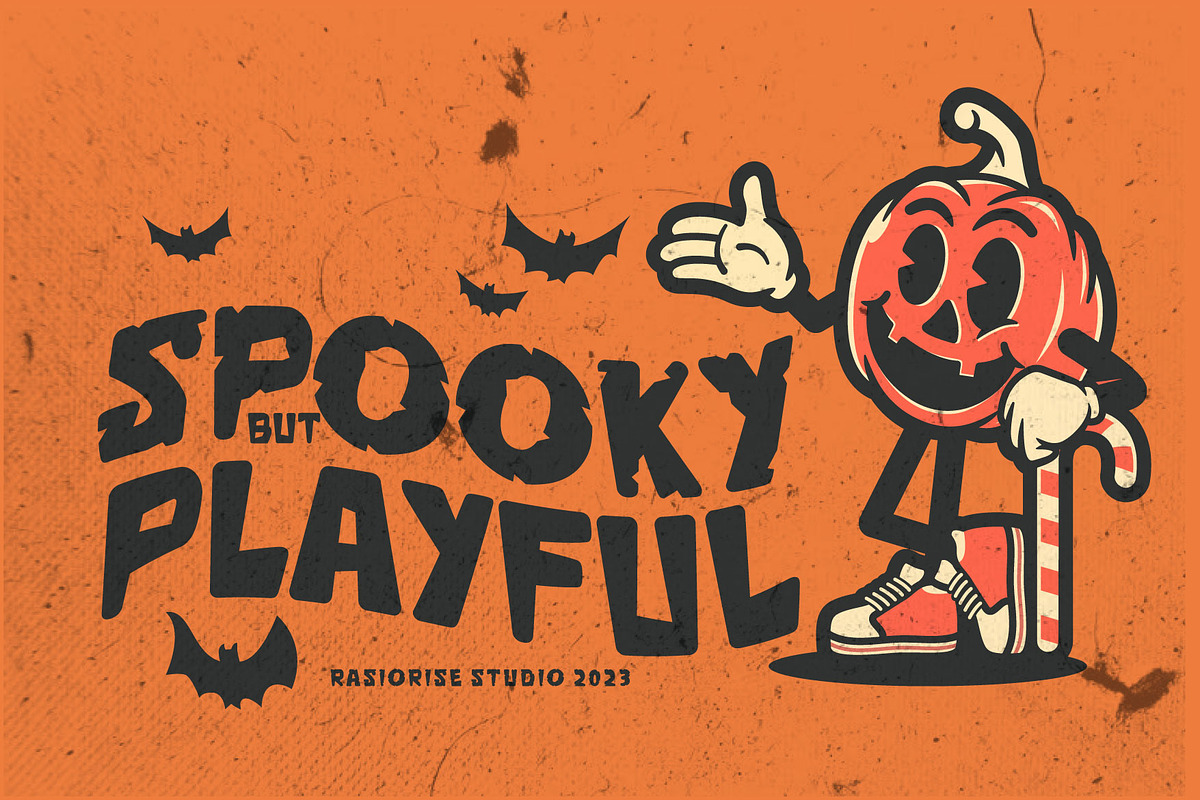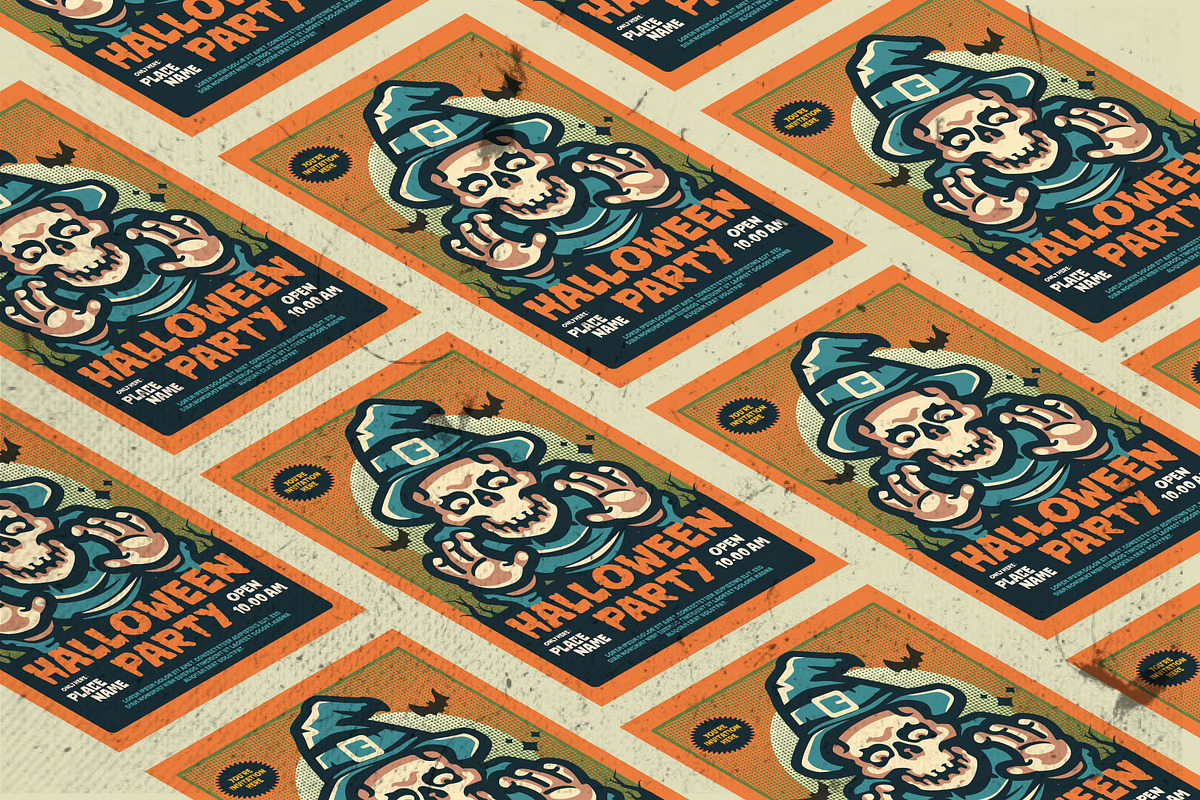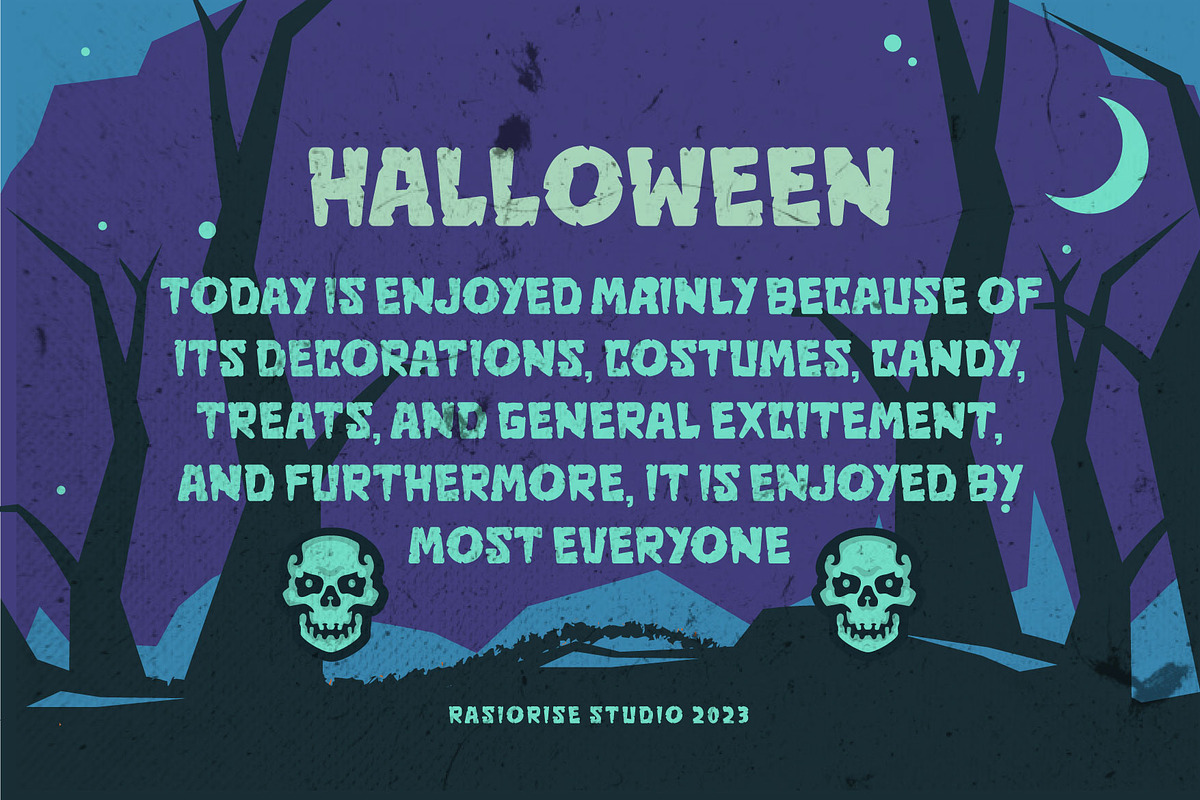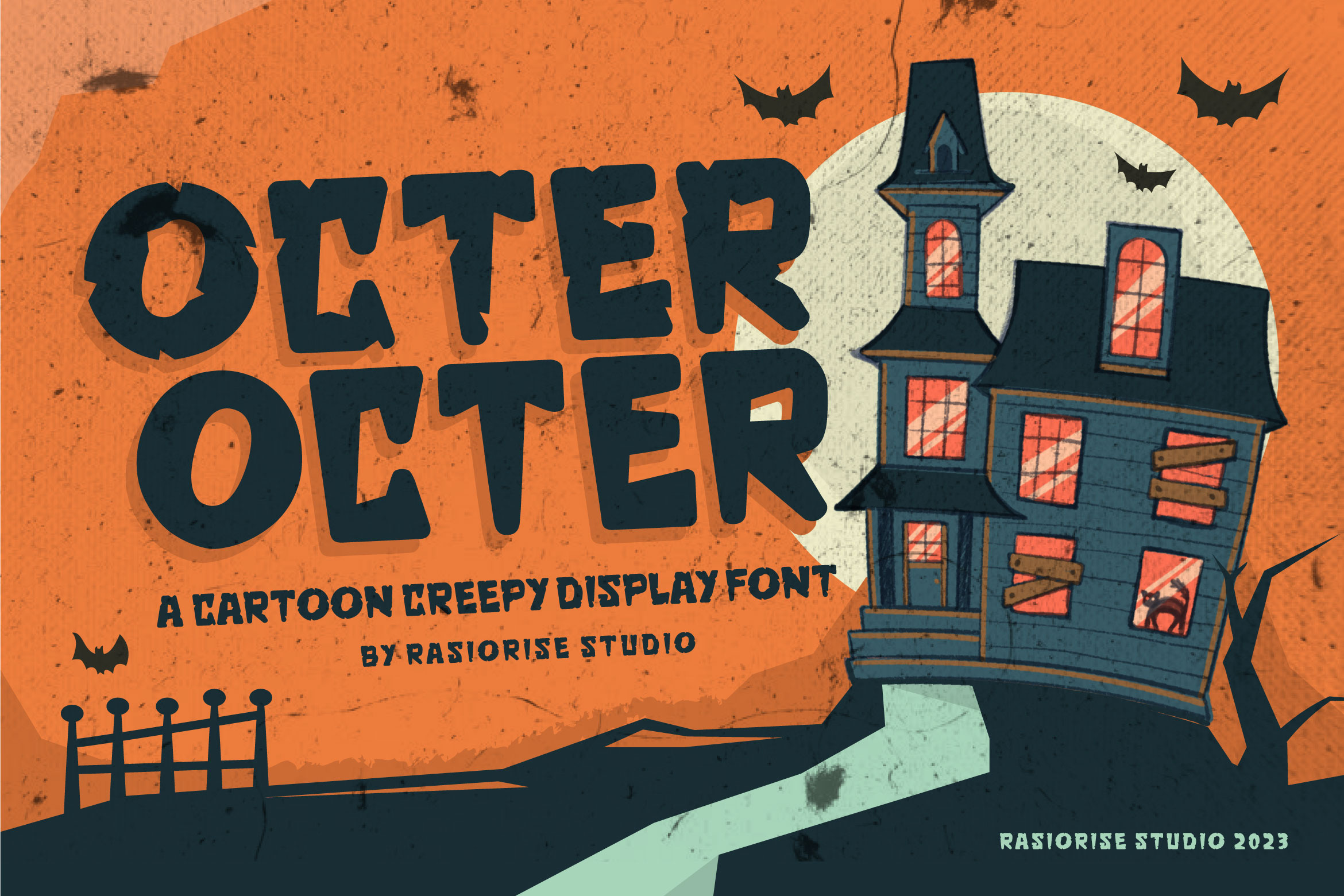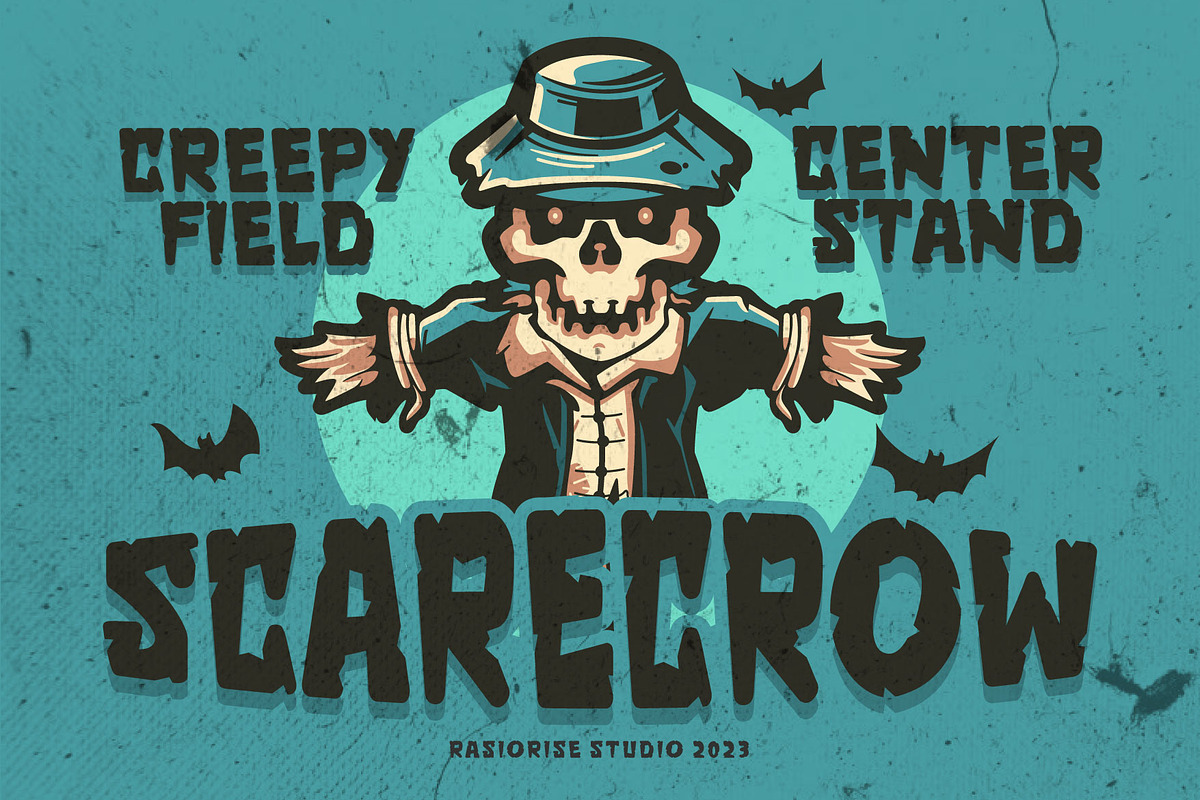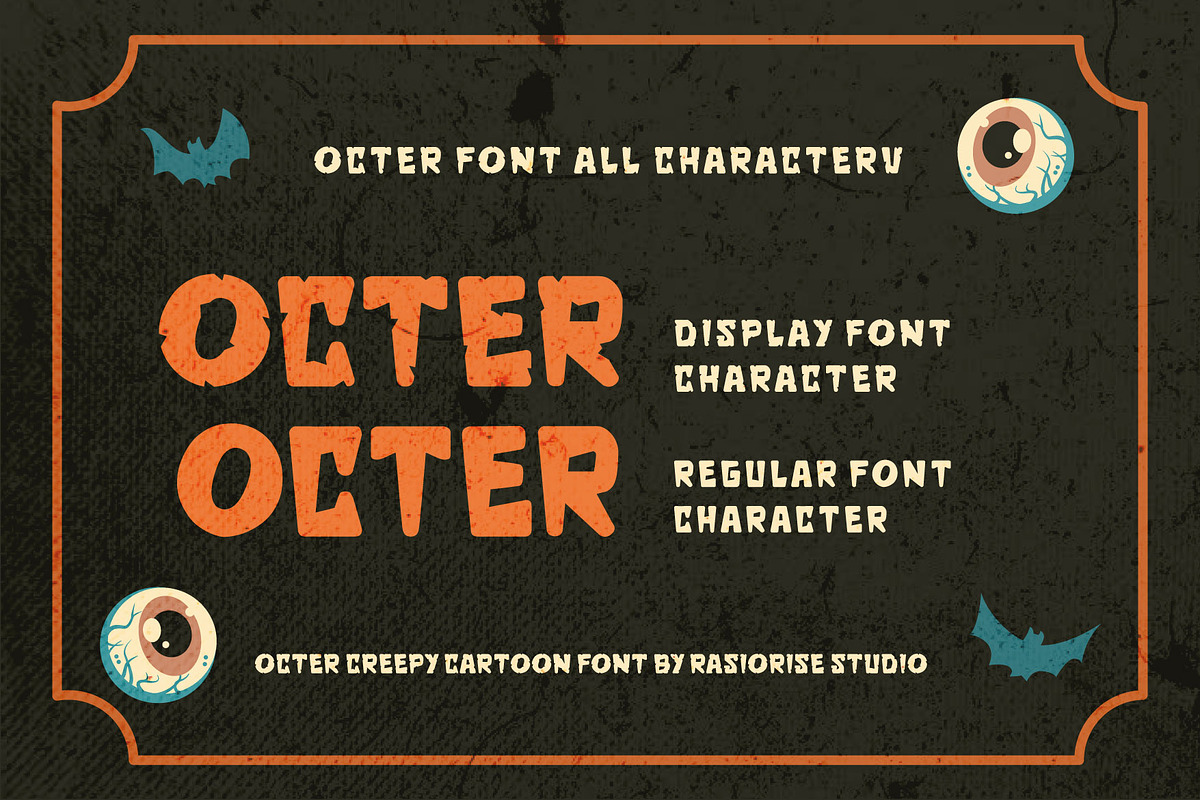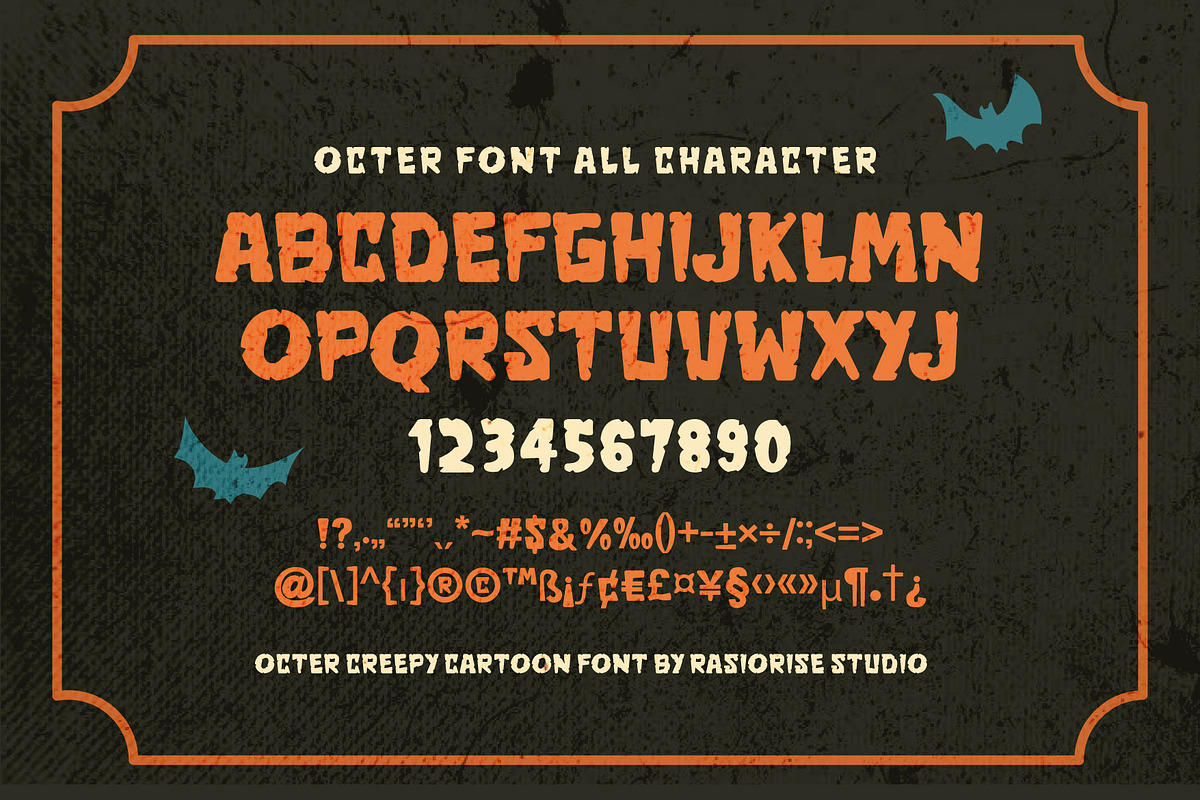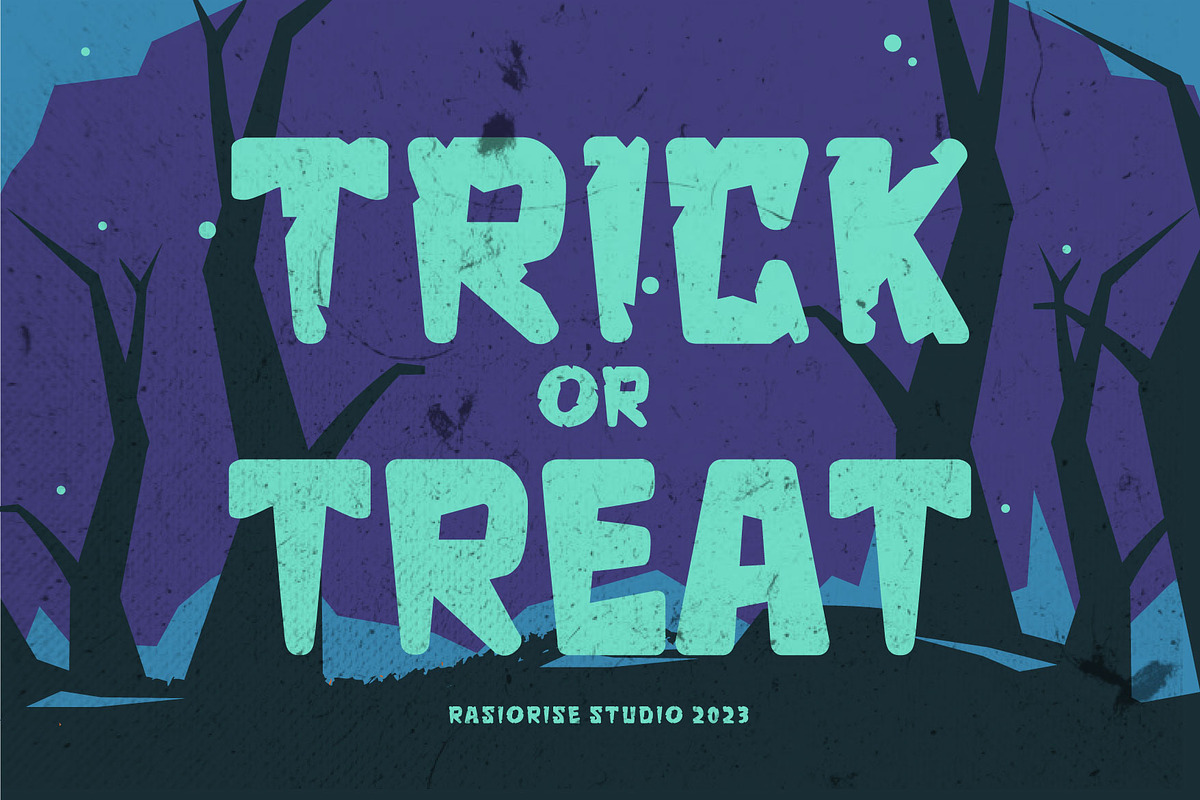
Octer a Halloween Cartoon Font
Hi Everyone! Octer a Halloween Cartoon Font has been released for those of you who are looking for a Creepy Halloween Cartoon Grunge and Regular font, The font is inspired by the classic horror movie font style with a few combine to turn them into a bit of a Halloween Creepy style.
Octer Font Very suitable for Logotype, Book Cover, Cartoon Horror Book, horror Comic Text, and much more